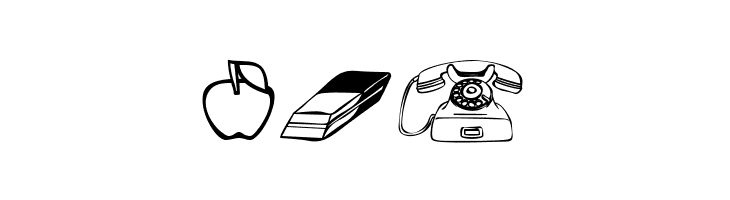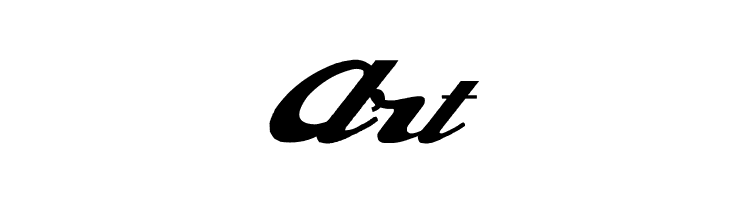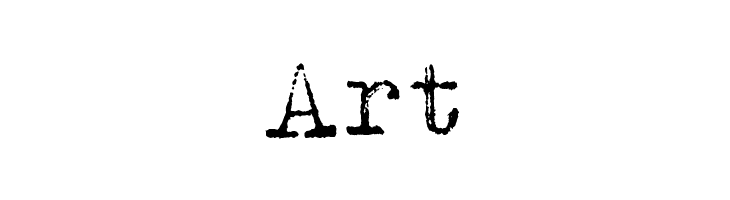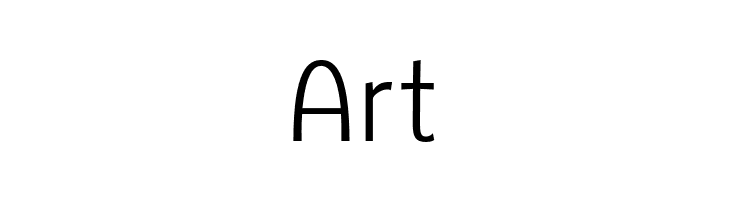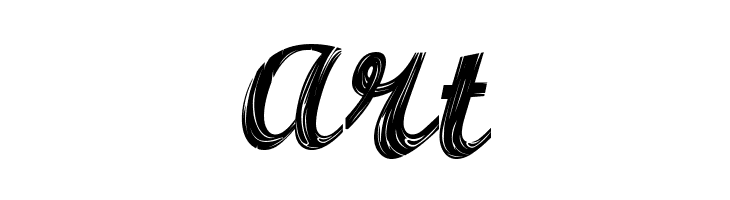
A bold, playful font with rounded edges and consistent weight.
A playful, hand-drawn font with rounded edges and a whimsical style.
A bold, textured font with a handcrafted, vintage appearance.
A whimsical, decorative font with vine-like embellishments, perfect for fantasy themes.
A bold, dynamic script font with flowing strokes and a modern flair.
A bold, distressed font with a vintage, grunge aesthetic.
A bold, geometric font with a blocky, modern design.
A bold, geometric font with puzzle-like shapes and high contrast.
Abstract pattern with lines and circles resembling a coded language.
A monospaced typewriter-style font with rounded characters and consistent stroke widths.
A modern, handwritten typewriter-style font with a slight slant.
A vintage typewriter-style font with a distressed, hand-drawn appearance.
A vintage, distressed typewriter-style font with an italic slant.
A bold, slashed font with a modern, edgy style.
An italicized, slashed font with a bold, damaged typewriter style.
A distressed typewriter-style font with a strikethrough effect across all characters.
A typewriter-style font with italicized characters and a strikethrough effect.
A vintage, typewriter-style font with a distressed, underscored design.
A vintage typewriter-style font with underscored, italic characters and a nostalgic feel.
A bold, slashed font with a modern and dynamic style.
A slashed, italic font with a dynamic, hand-drawn style.
A typewriter-style font with a modern strikethrough effect.
A typewriter-style font with italicized letters and a strikethrough effect.
A monospaced, underscored font with a vintage typewriter style.
A vintage typewriter-style font with underscored, italicized characters.
A calligraphic font with flowing, artistic strokes and a dynamic appearance.
A bold, fragmented font with a shattered glass effect, featuring angular and irregular shapes.
A bold, dynamic italic font with strong, consistent strokes and a sense of movement.
A playful, casual handwritten font with a bold, organic style.
A jagged, shattered glass-style font with sharp, angular fragments.
A bold serif font with classic, authoritative characteristics.